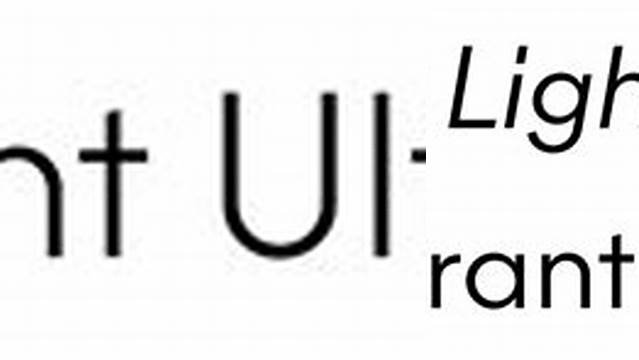
1. Exploring the Allure of the Majorant Light Font
Alright, let's get to the heart of the matter. What makes the Majorant Light font so darn appealing? Well, first off, it's got that effortlessly cool vibe. This font is typically characterized by its clean lines and a modern aesthetic. It's the kind of font that whispers sophistication without screaming for attention. That versatility is what makes the Majorant Light font a popular choice for a wide range of design projects. You might find it gracing the pages of a minimalist website, adding a touch of elegance to a business card, or even making your social media graphics pop. The light weight is a key element to its delicate design. It's perfect for headlines, subheadings, and even body text in certain applications. The clean and legible design of the Majorant Light font makes it a great option for projects where readability is a priority. It is also a great choice for those seeking a more minimalist design style because of its simplicity. Its adaptability is what makes it such a favorite among designers. If you're working on a project that demands a touch of understated elegance, the Majorant Light font could be your new best friend. It is well-suited for both digital and print applications. Its simple and light-weight design often results in smaller file sizes. So, if you are looking for a font that is both aesthetically pleasing and practical, you have to give the Majorant Light font a try.
5. Majorant Light Font: Variations and Styles to Explore
The Majorant Light font isn't just a one-trick pony. You'll likely find that it comes in a range of variations and styles, each with its own unique personality. Beyond the basic light style, you might encounter options like regular, bold, italic, and even condensed versions. Each version of the font has its own look. The variety of styles gives you more options to work with in your designs. The light version is perfect for delicate headlines and body text. The bold version will look great in larger headlines or for emphasizing important information. The italic style adds a touch of flair, while the condensed versions are perfect for fitting more text in a limited space. If you're looking to create a cohesive design, it's a good idea to use different variations of the same font. Experiment with different styles. This will give you more options. Understanding the available variations of the Majorant Light font will help you create more dynamic and visually appealing designs. Consider the purpose of your project. You should choose the font that fits the message you are trying to convey. Play around with the different styles until you find what you like. If you have different versions of the Majorant Light font, be sure to play around with them.
6. Majorant Light Font in Design: Best Practices
Alright, let's talk design! Using the Majorant Light font effectively is all about knowing how to apply it to your projects. First off, consider the context. Is it for a website, a print advertisement, or something else? This will help determine the appropriate size and weight of the font. Since it's a light font, it's generally best suited for display purposes or for headlines. Avoid using it for large blocks of body text, as it might be difficult to read. Consider using it for headings, subheadings, or short bursts of text that need to stand out. Pair it with a contrasting font for body text. This provides a clear visual hierarchy. Think about the color scheme. The Majorant Light font looks amazing on light backgrounds. It's also suitable for dark backgrounds. Always ensure that there is sufficient contrast between the text and the background. The right contrast will make the text readable. If you are designing a website, make sure the font is web-safe. Before you start using the font in your designs, you should test it. Open a document in your design software. Type a few words to determine if the font looks good in different sizes and weights. Test the font on different devices and browsers to ensure the font looks good on all screens. Following these tips, you can maximize the visual impact of the Majorant Light font and enhance the effectiveness of your designs. Experiment with different font sizes, weights, and styles to find what works best for you. It can also be used in a variety of design projects.
7. The Majorant Light Font in Web Design: Tips and Tricks
Let's get specific about web design, guys! The Majorant Light font can be a fantastic choice for websites, but you'll need to consider some specific factors to ensure it looks its best online. First, make sure the font is web-safe. What does that mean? It means that the font is widely supported by web browsers. You can use Google Fonts or Adobe Fonts to ensure web-safe fonts. Second, optimize the font for readability. This includes choosing the right size and weight. Light fonts can sometimes appear a bit delicate on the screen. Use a font size that's large enough for comfortable reading. Make sure there is enough contrast between the text and the background. Choose the right line height and letter spacing. These factors will affect the overall readability. If you're using the font for headings, make sure the font is responsive. This means that the font should scale well on different devices, such as desktops, tablets, and phones. If you're working with responsive design, make sure the font is well-suited for all screen sizes. Another important thing is to consider the overall design. The Majorant Light font often works well with minimalist and modern designs. Ensure that the font matches the overall design. Remember that it is a light font. Therefore, the best use of the font would be for headings. By following these tips and tricks, you can create a website that looks stunning. You will also have a website that is easy to read.
8. Combining Majorant Light with Other Fonts
Mixing and matching fonts can be a fun way to spice up your designs. However, it's important to do it thoughtfully. When using the Majorant Light font, consider pairing it with a font that complements its characteristics. The key to success is contrast and balance. A good combination would be the Majorant Light font with a sans-serif font. These combinations will help create a clear visual hierarchy. You can pair the Majorant Light font with a more robust font. It is best to use one font for headings and another for body text. Avoid pairing the Majorant Light font with fonts that are too similar. This can make your design look messy and confusing. Make sure the fonts you are using share a common aesthetic. Test different font pairings. This is an easy way to decide which combinations work best for your project. Consider using a serif font for body text. For example, you can use the Majorant Light font for your headlines and a serif font for your body text. Experiment to see what works best for your project. The combination of fonts you choose will depend on your design project. It's important to consider the message you're trying to communicate and select fonts that support that message. With a little creativity, you can create a design that is visually appealing.